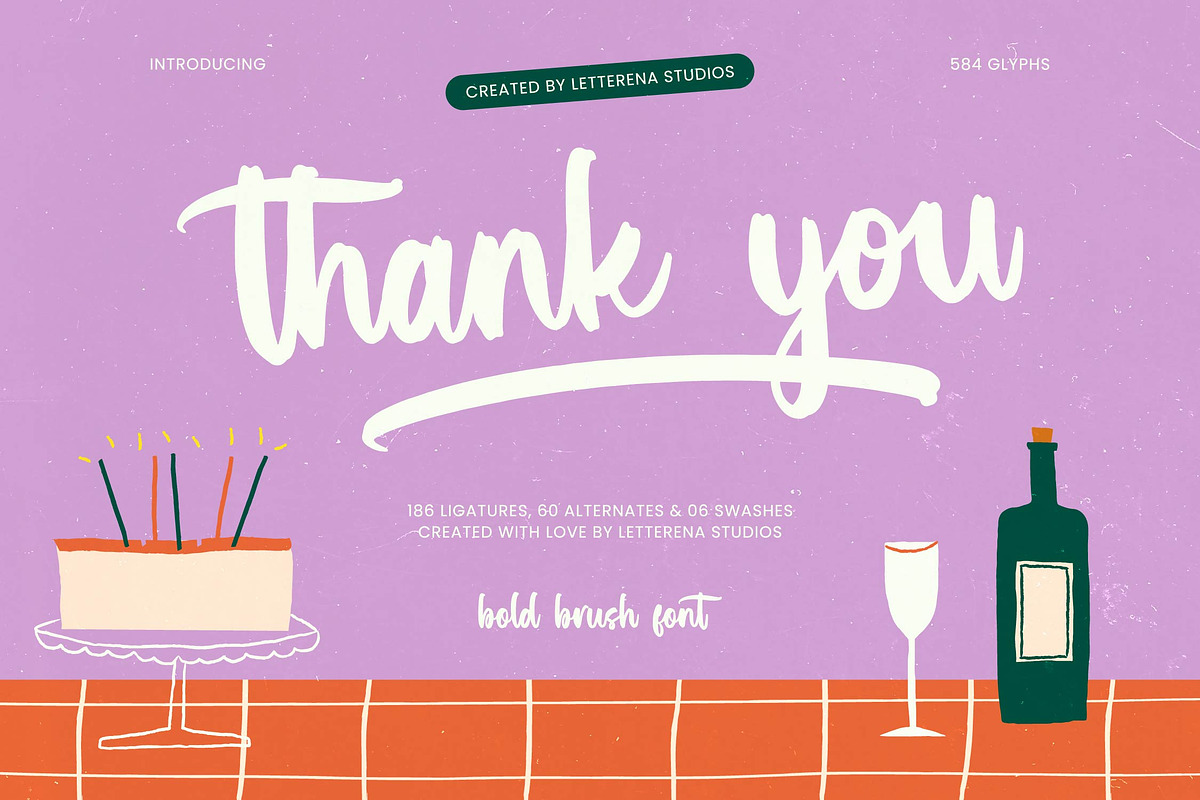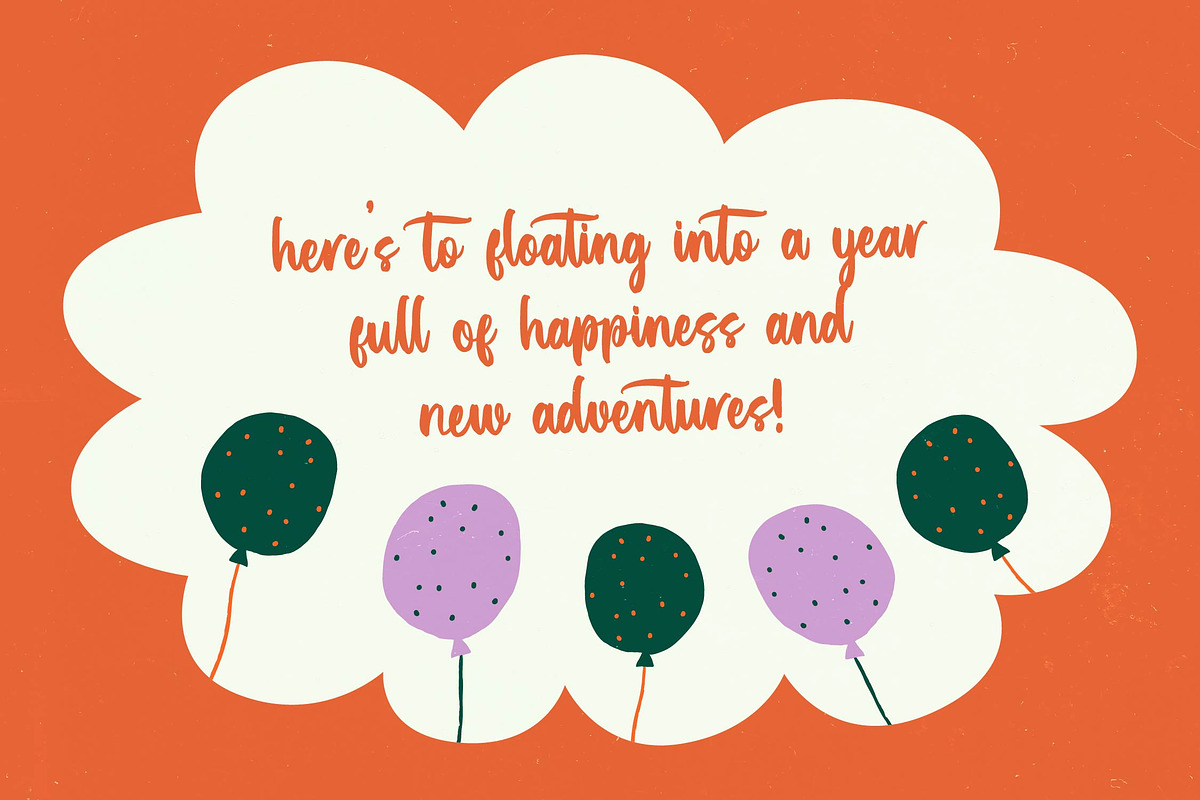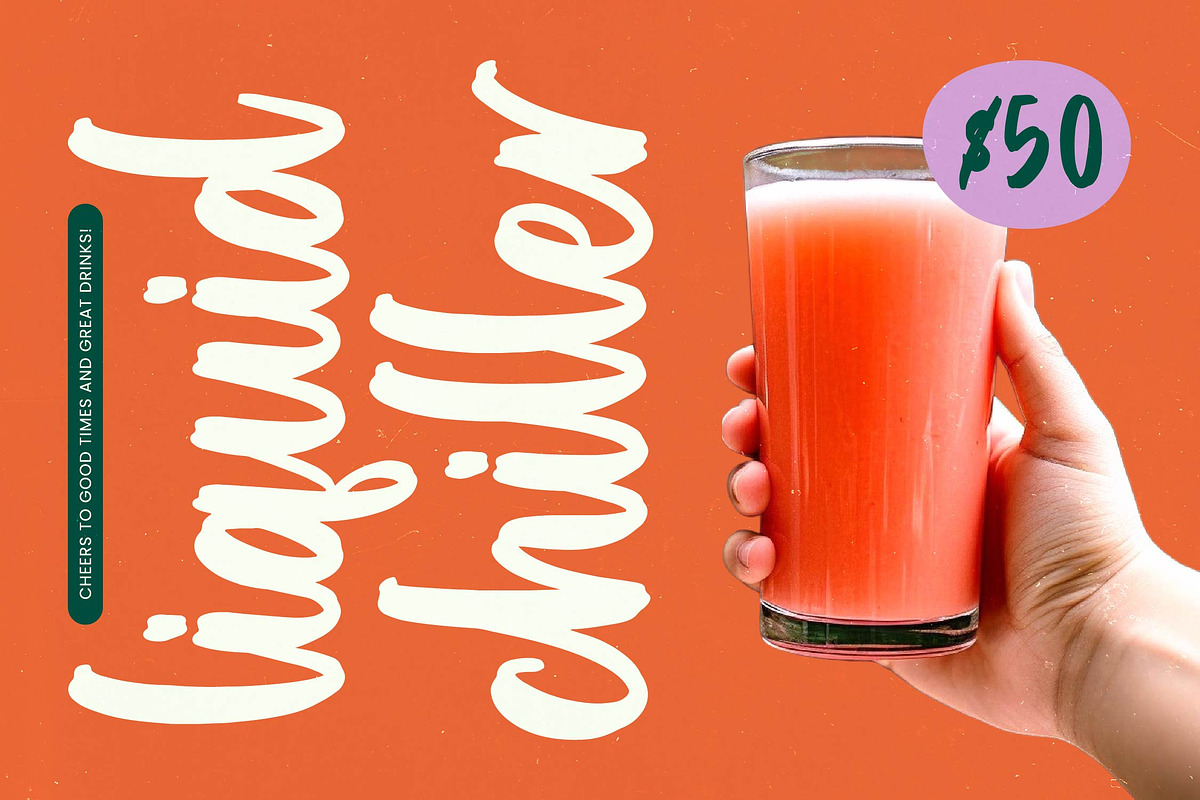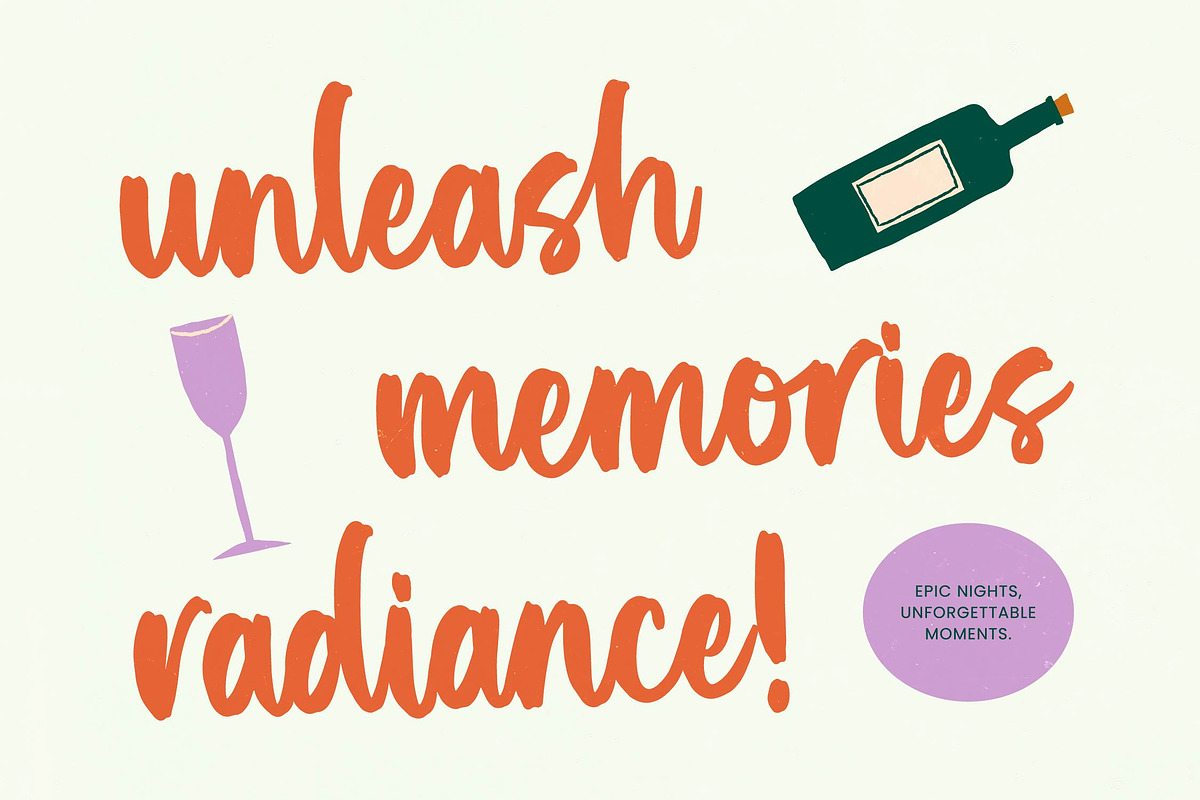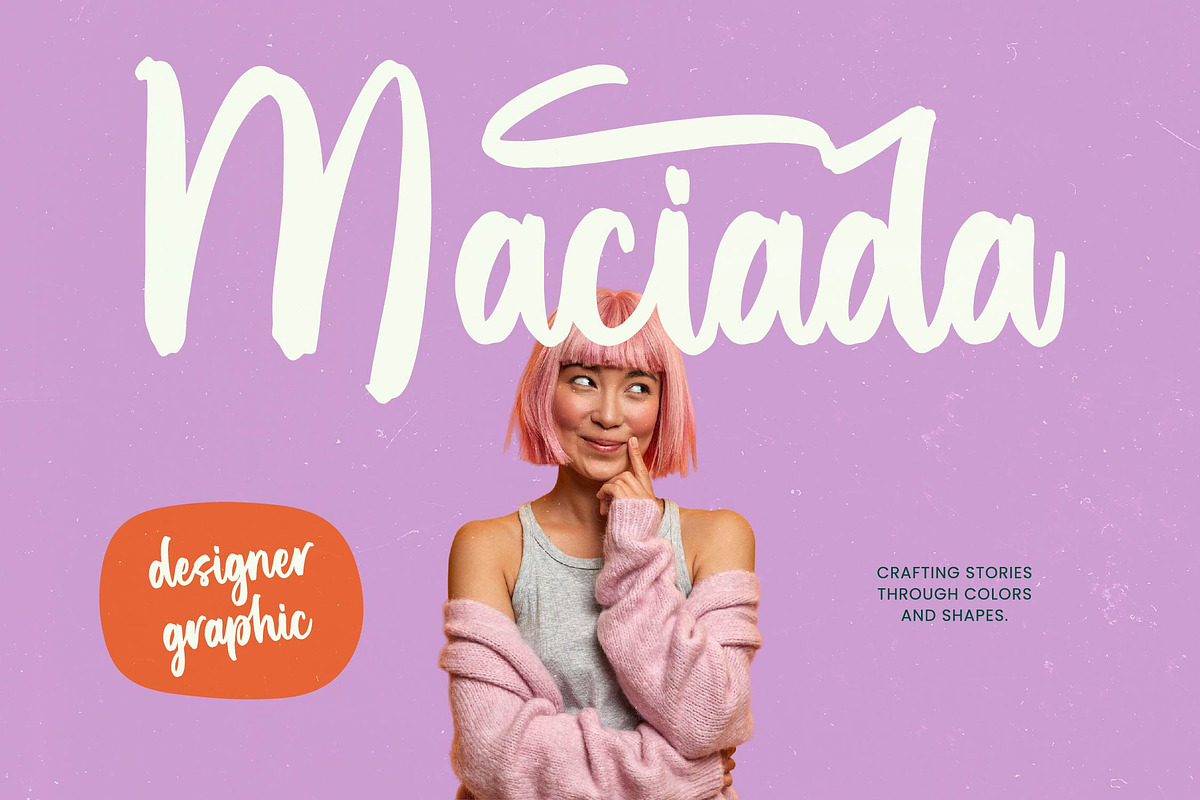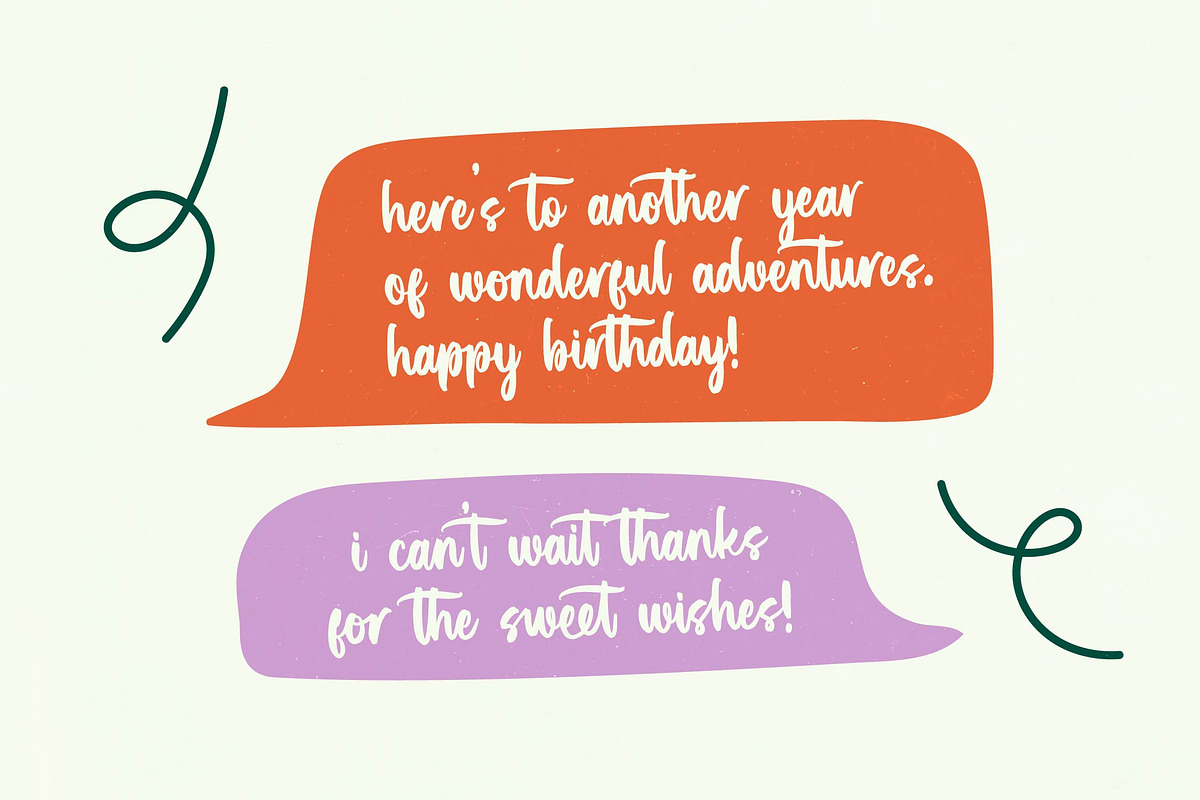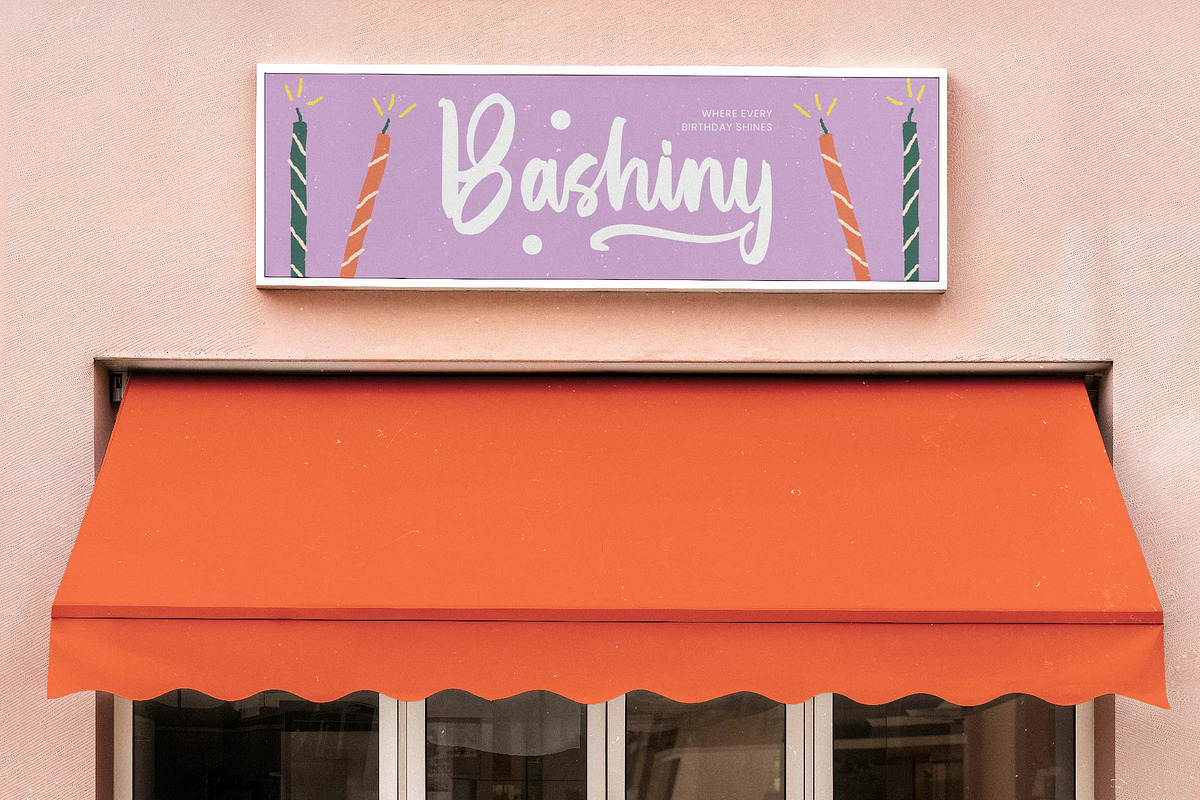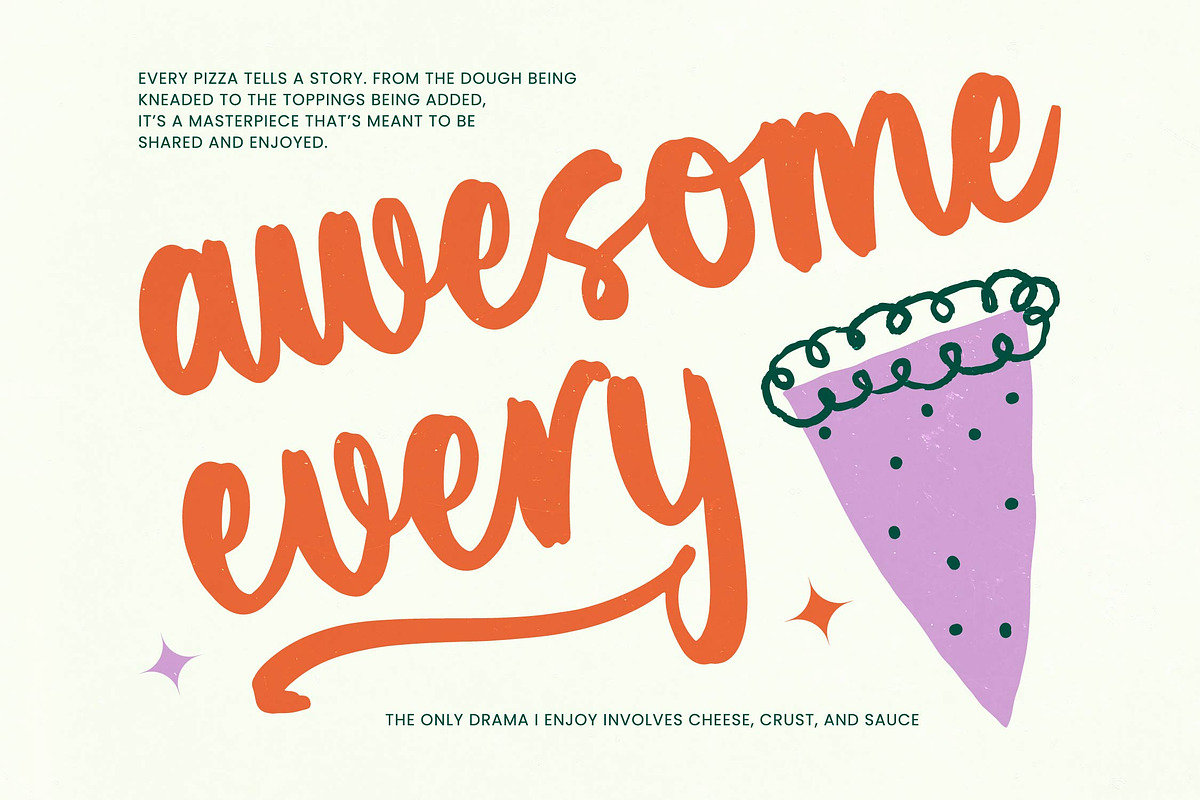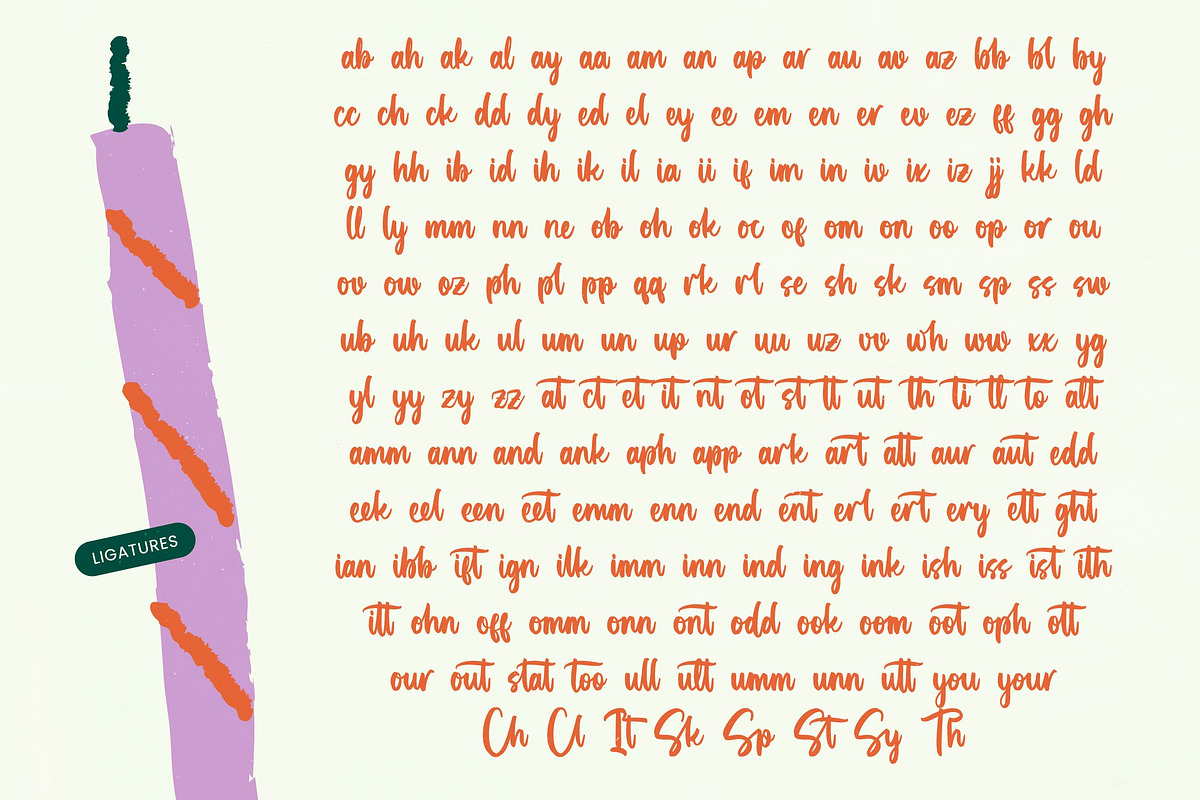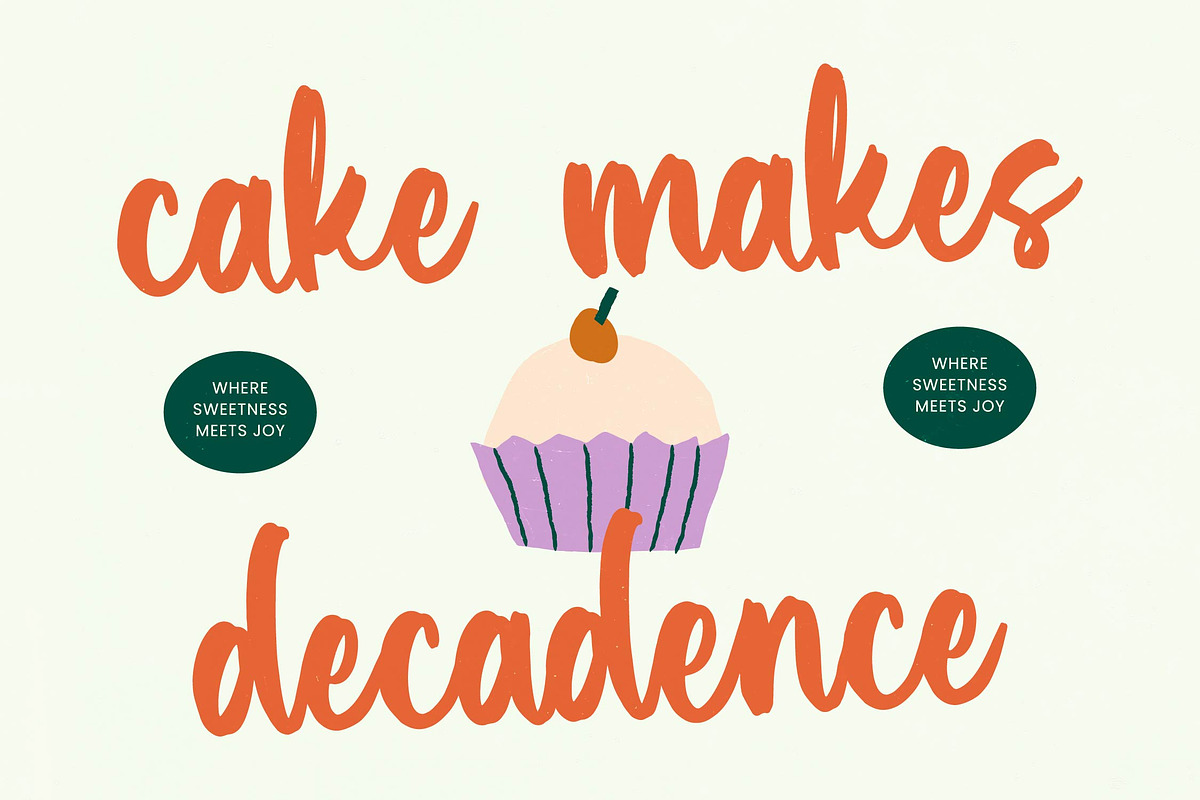
Smiles Chapter Bold Brush Font
Smiles Chapter - Bold Brush Font , Smiles Chapter is a bold brush handwritten font crafted to bring warmth, personality, and joyful energy into your designs. With organic strokes, playful movement, and a naturally textured appearance, this typeface is perfect for lifestyle branding, party-themed visuals, creative packaging, social media posts, greeting cards, and handmade-inspired projects. Featuring 186 ligatures, 60 alternates, and 6 swashes, Smiles Chapter gives you the flexibility to build expressive headlines, custom lettering compositions, and charming visual identities that feel friendly and authentic.